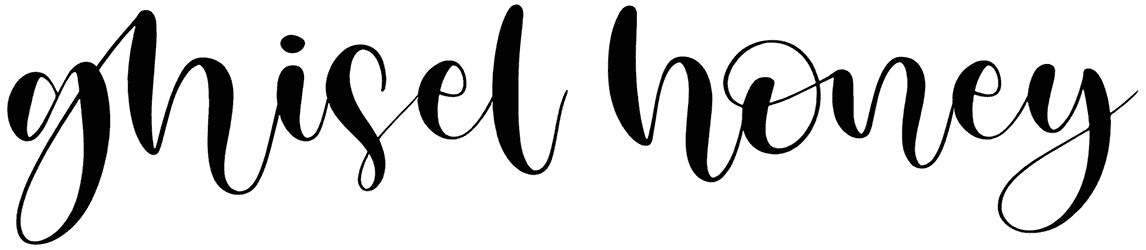
Ghisel Honey Font
When you look at the Ghisel Honey font, its elegant design immediately catches your eye. This script font is offered in two versions that expand your selection range. You may use the Ghisel Honey font for various cases, such as postcards, magazine covers, and flyers.
Moreover, this font’s letters have a playful style with a stunning vibe that seems pleasant. Its soft, rounded edges make the Ghisel Honey font adorable, so enjoy how this calligraphy font impresses your audience.